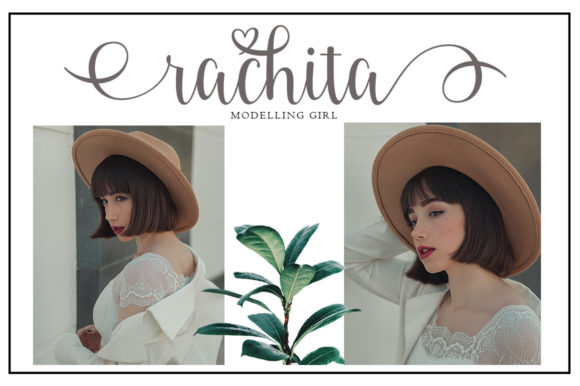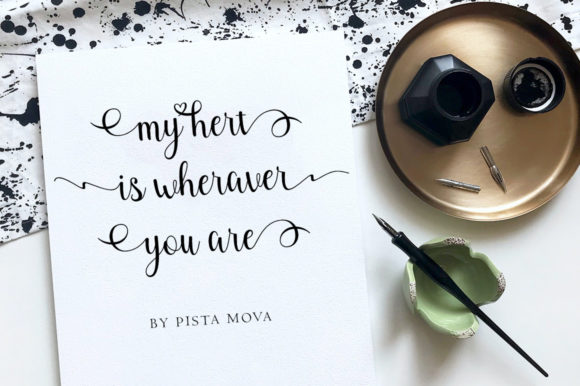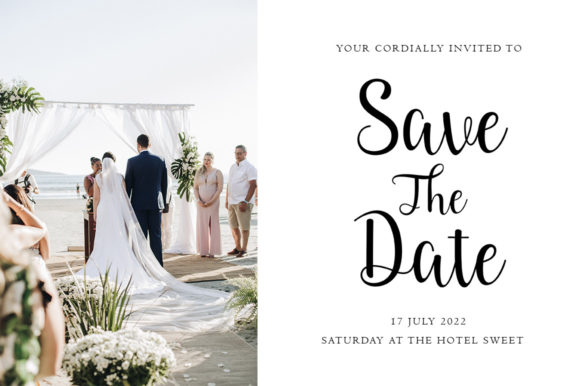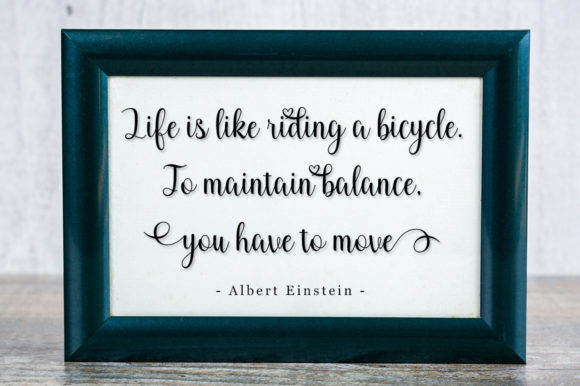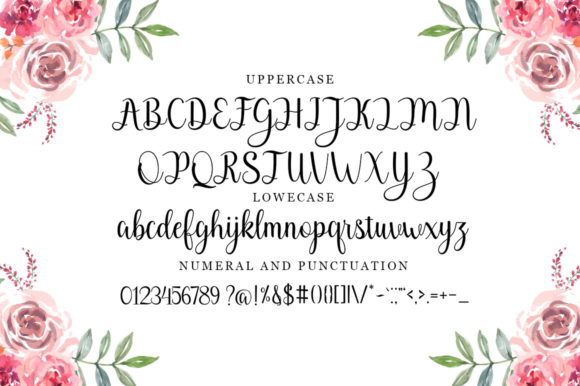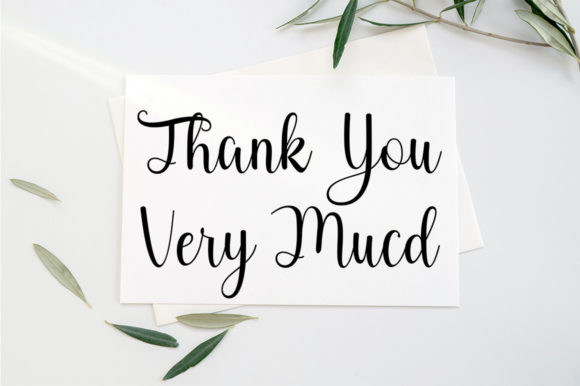
Dhellia Font
About Dhellia Font
Dhellia is a stunning script font with a love theme. Use this gorgeous and unique font to bring any DIY project to life!